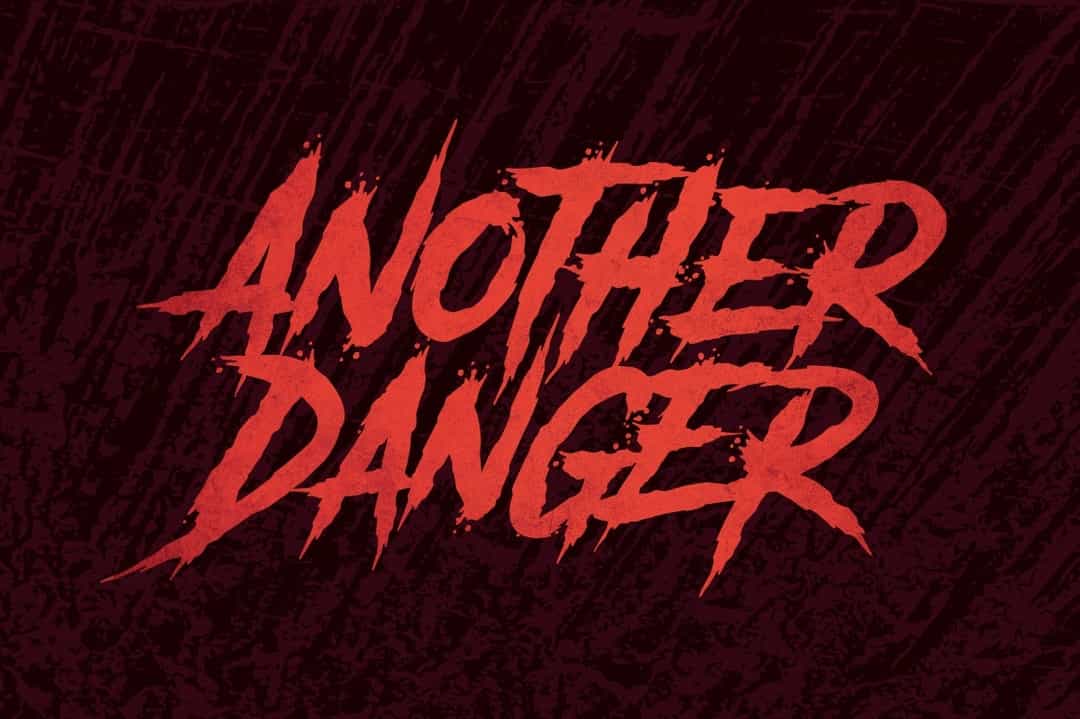
Another Danger! is a new inventive typeface that has been developed to serve all your imaginative purposes. Written with letters like messy splatters of ink and illustrations that puff like ink splatter, Another Danger! , creates all sorts of mystery. Get rough looks and retro appearances, as well as splatter art-works for the much-needed ‘retro feel’ and an absolute free-reign for creativity with Another Danger!